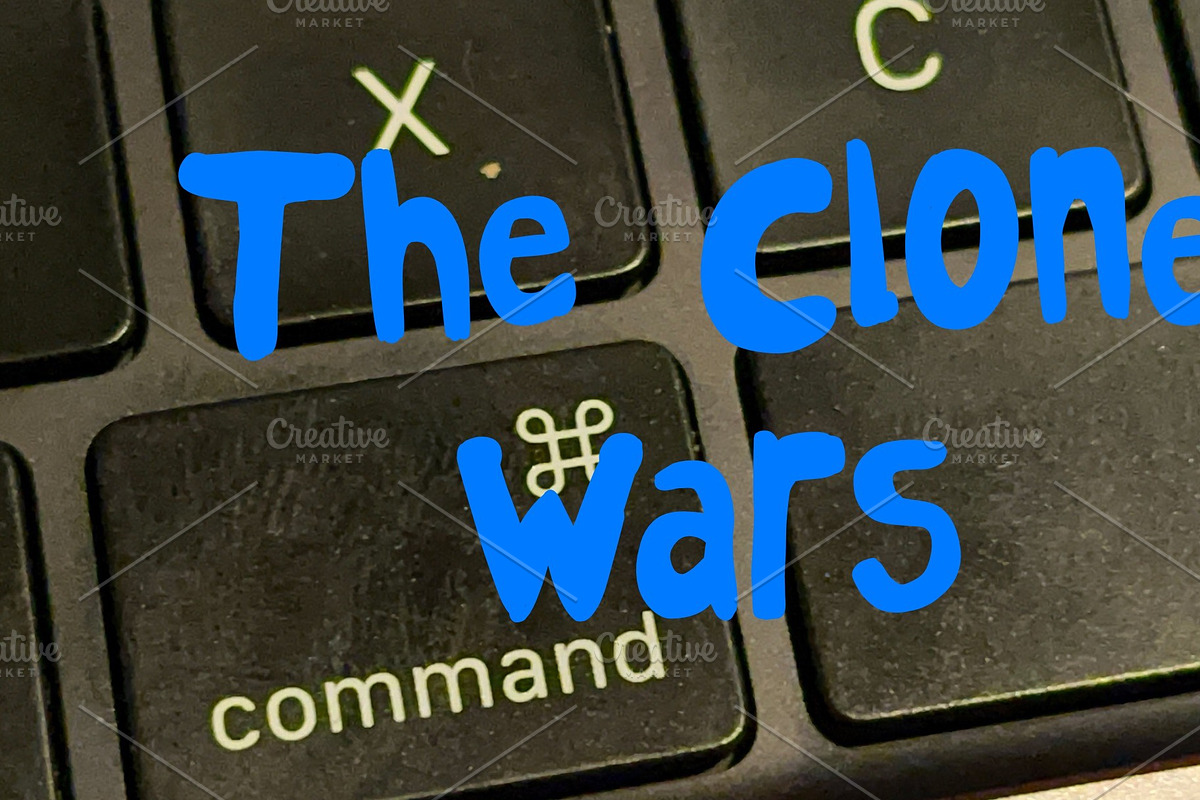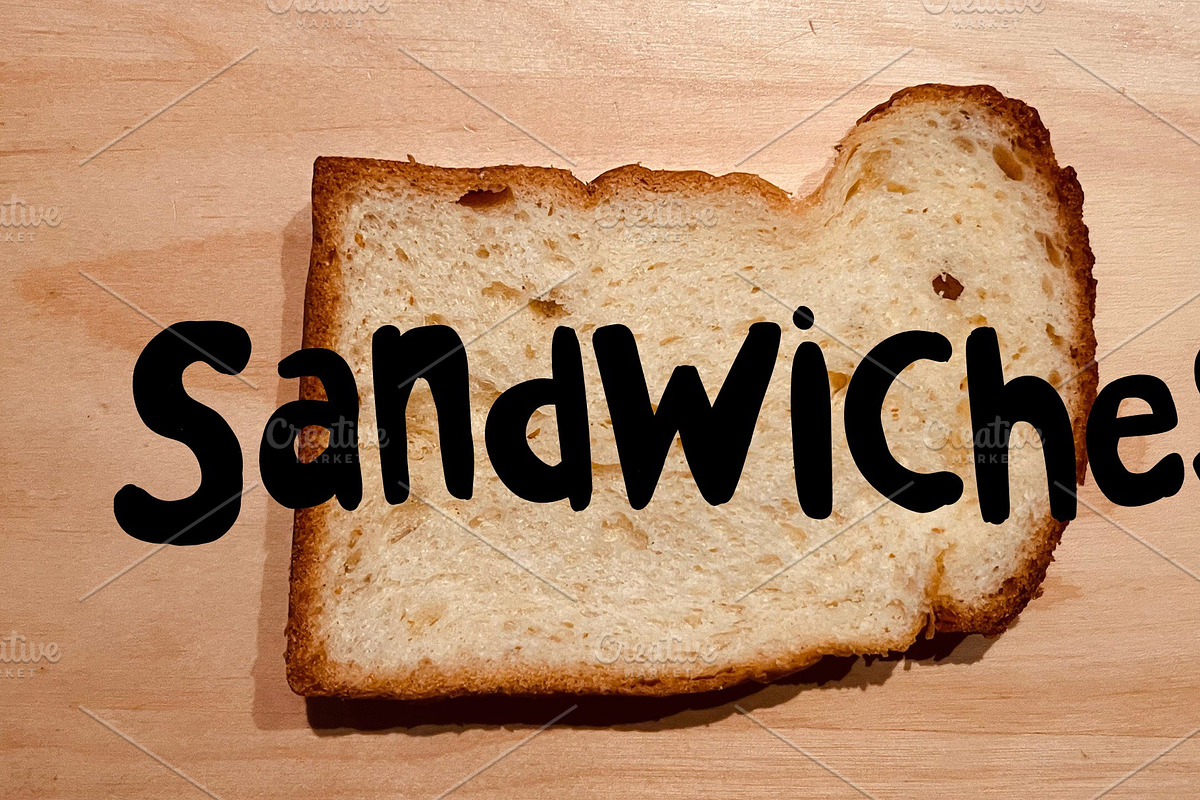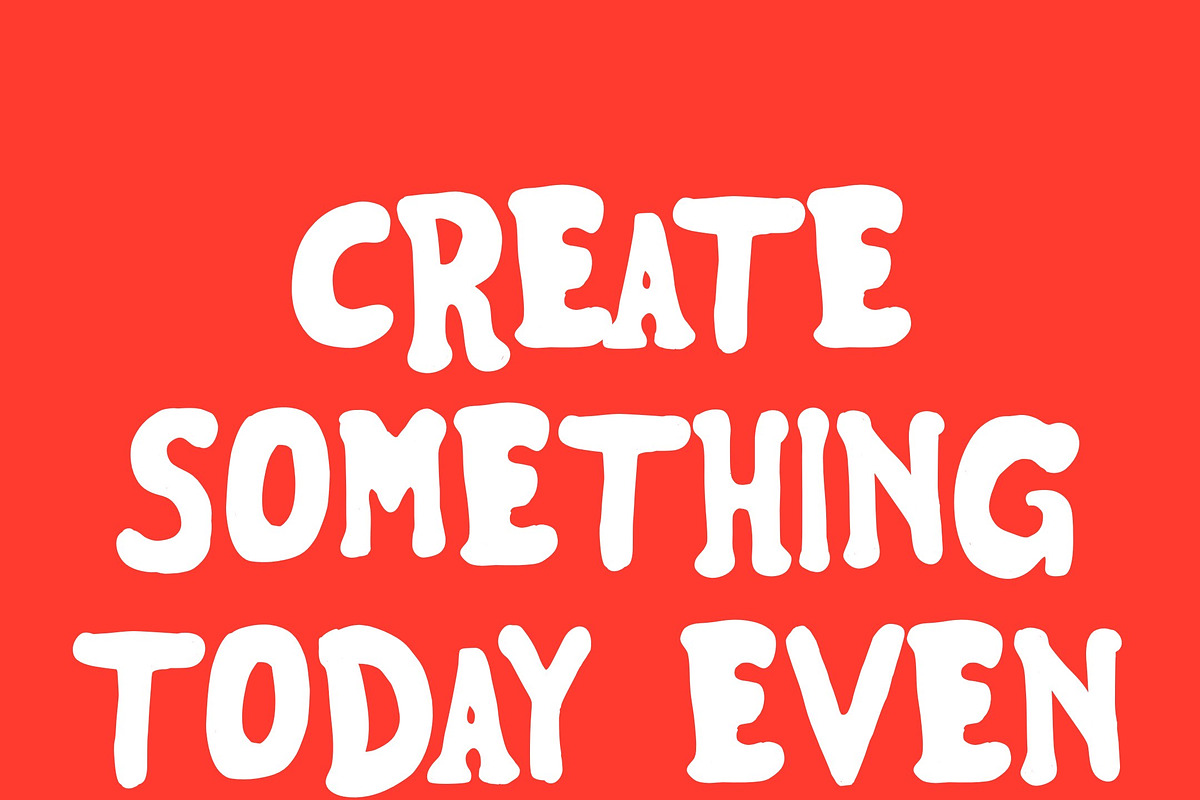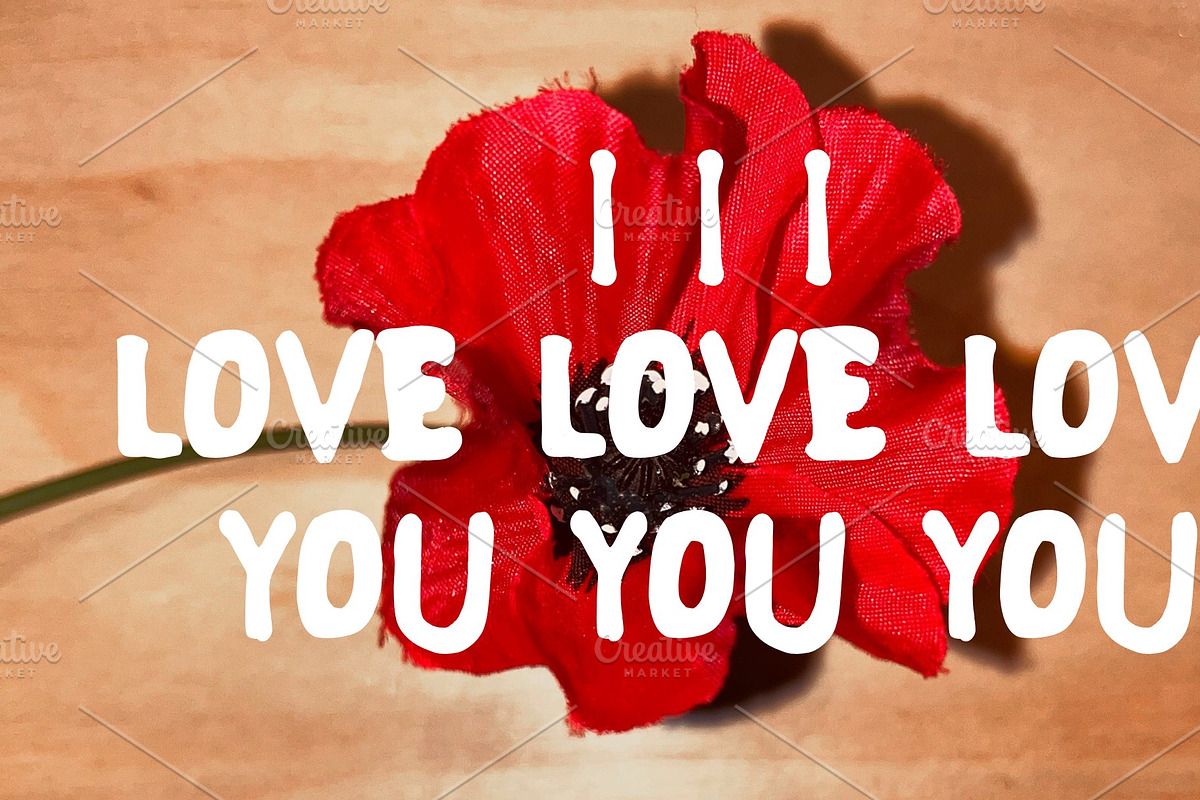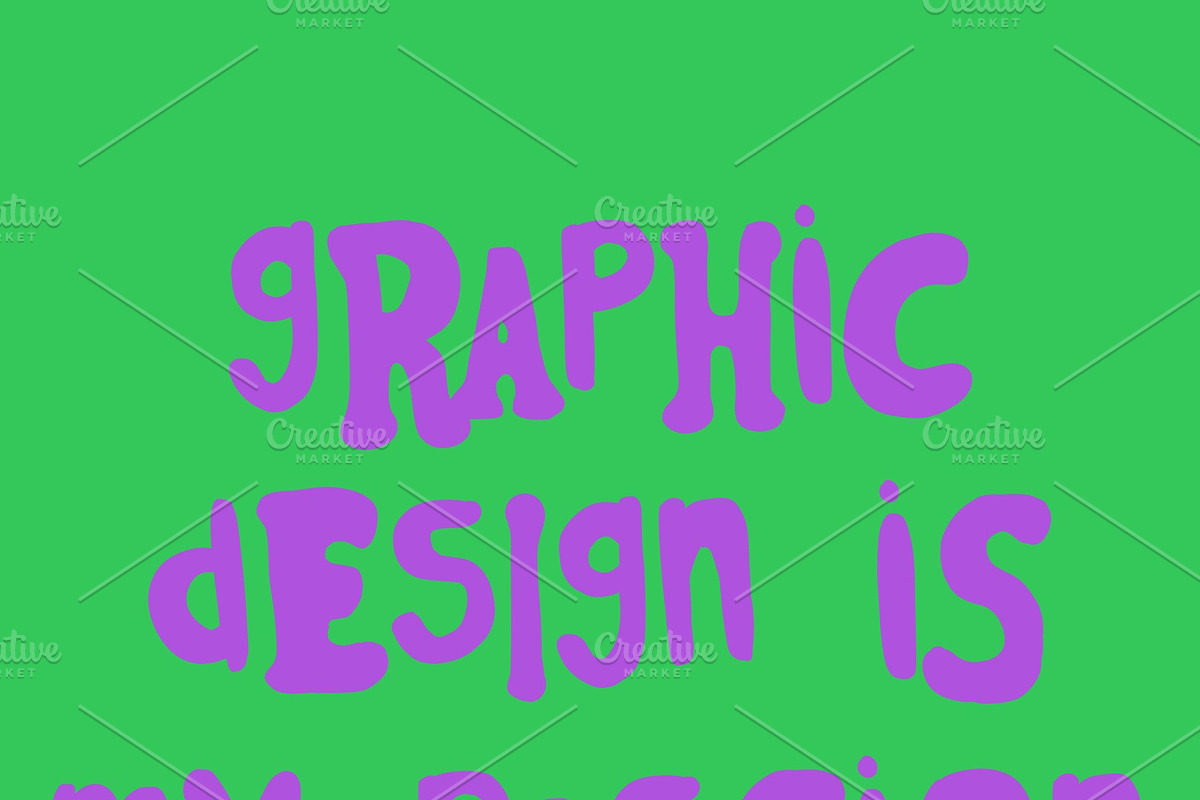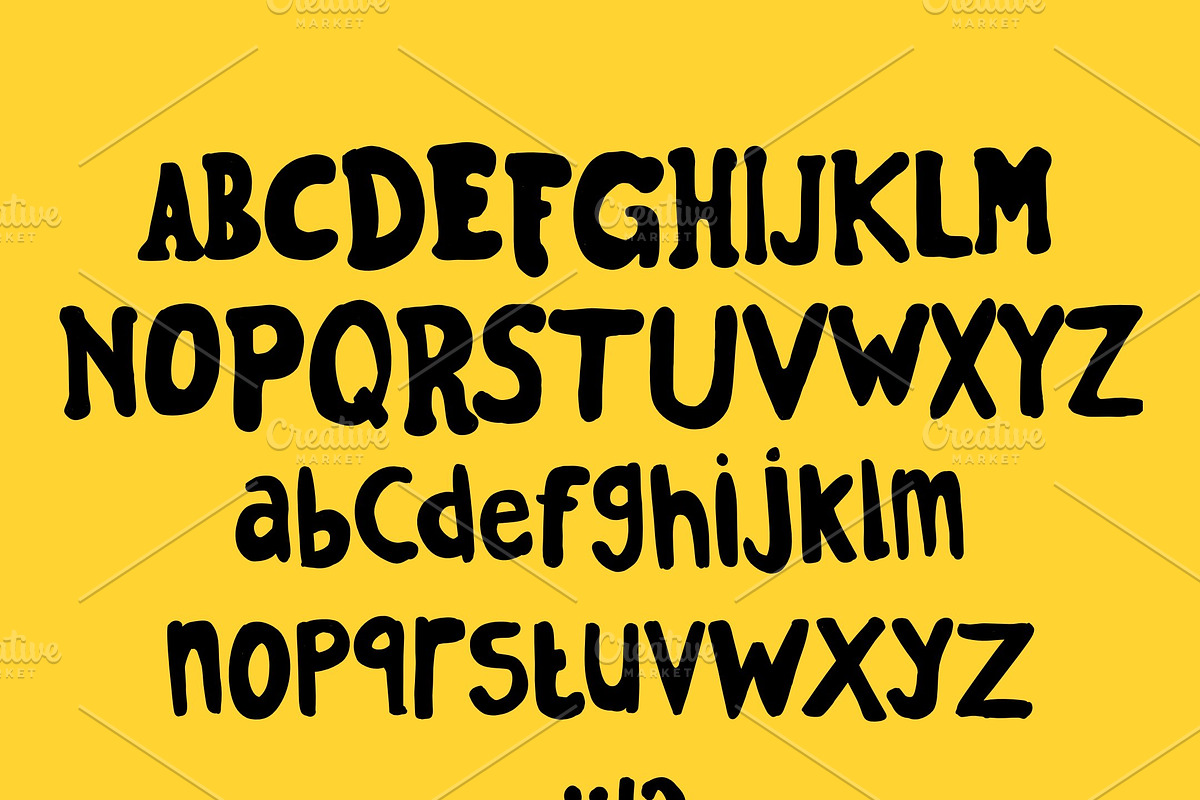
Unkel Man Vintage
unkel man is a handmade vintage sans font. inspired by vintage classic culture font. this font is perfect to combine in your design, poster, and many more. happy enjoy :)